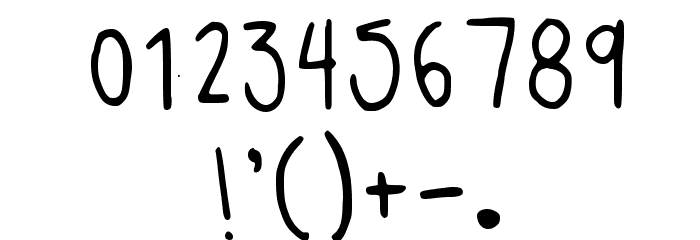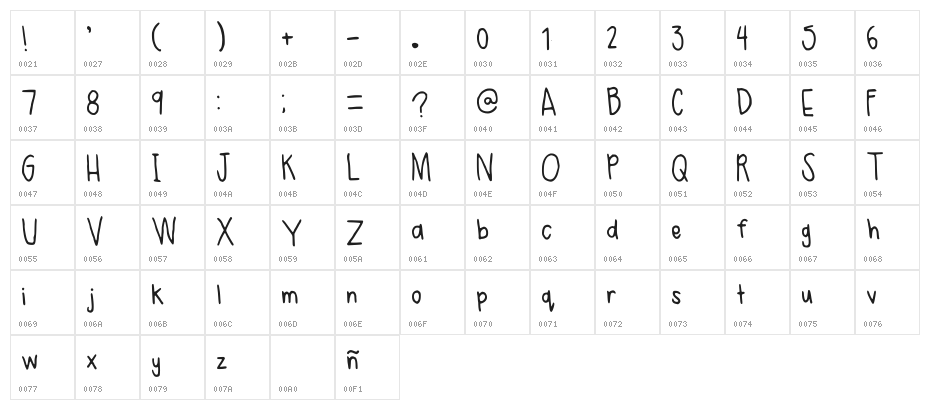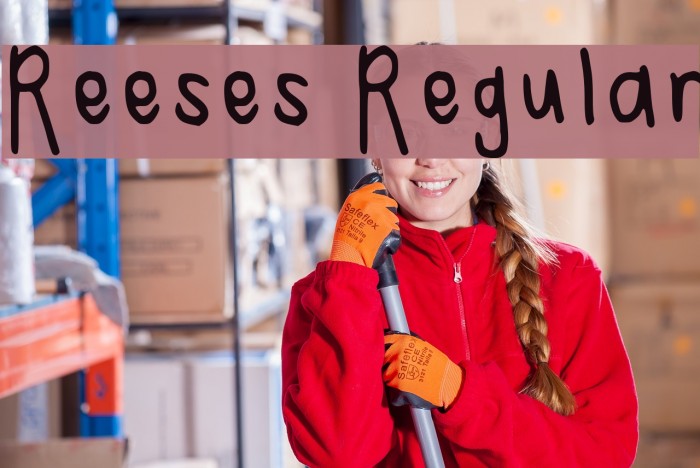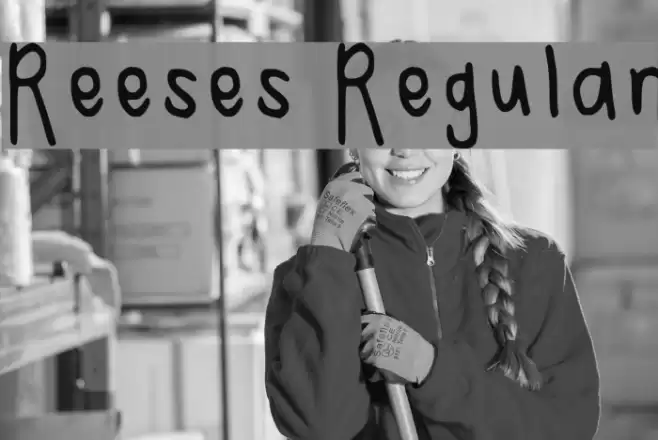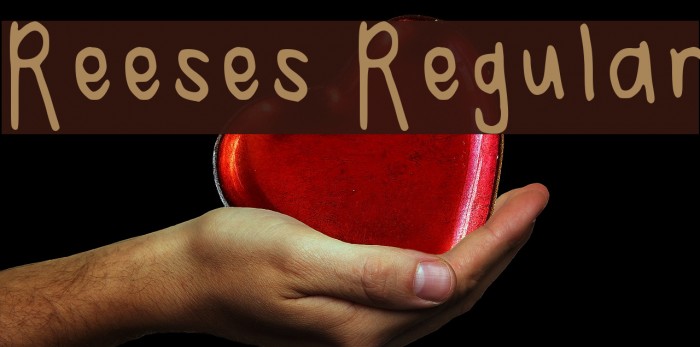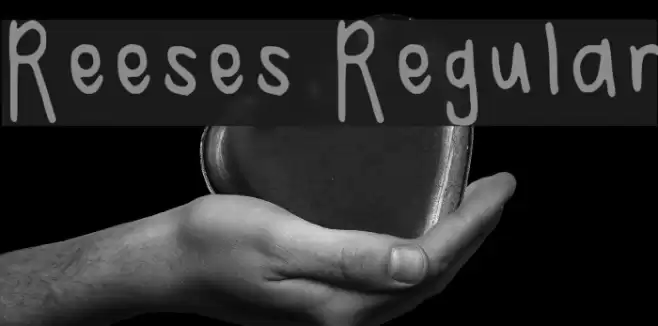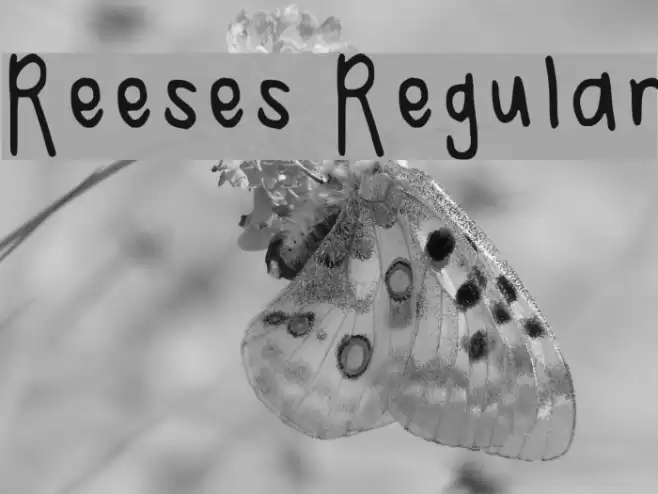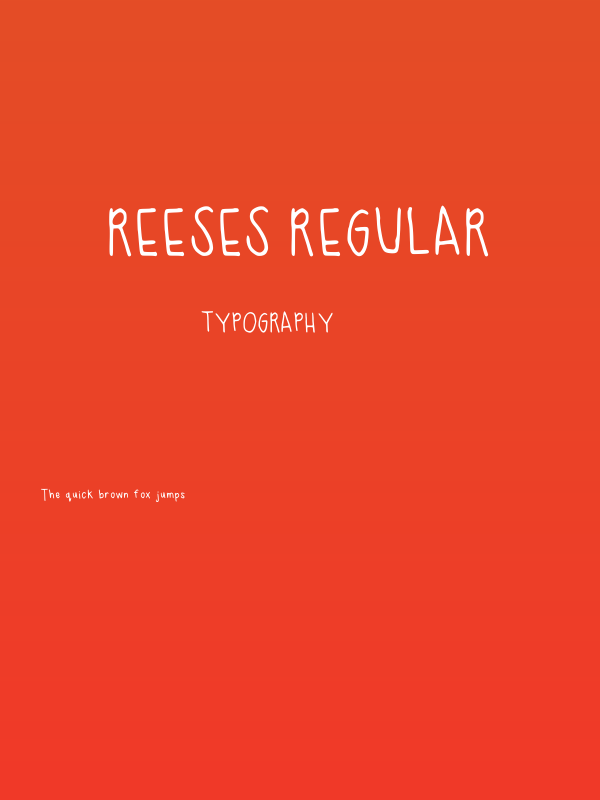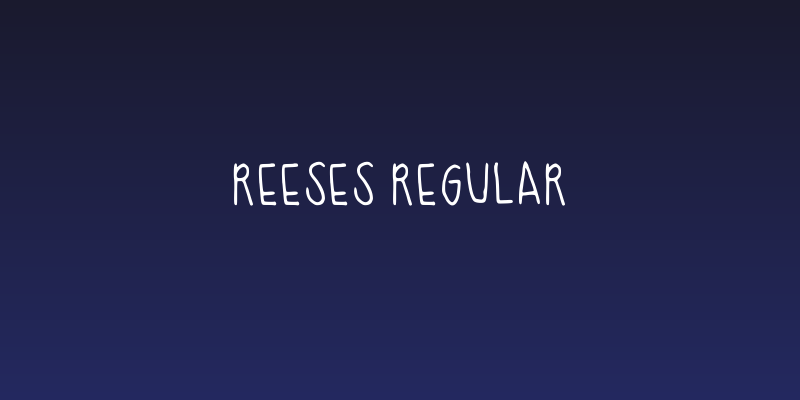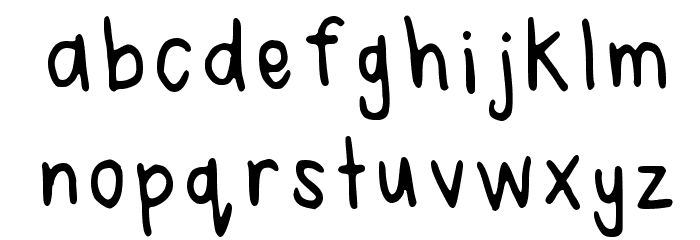
Reeses Regular Font
Reeses Regular Description
This font exudes a playful and casual vibe, characterized by its handwritten style. The letters are slightly irregular, adding a personal touch that mimics natural handwriting. The strokes are consistent in width, providing a uniform appearance despite the informal style. This font is highly legible, with clear distinctions between each character, making it suitable for a variety of uses where a friendly and approachable tone is desired. The numbers and special characters maintain the same playful aesthetic, ensuring a cohesive look across all text elements.
| Use Case | Headlines, Informal text, Branding |
| Proposed Projects | Ideal for greeting cards, children's books, informal branding, and social media graphics. |